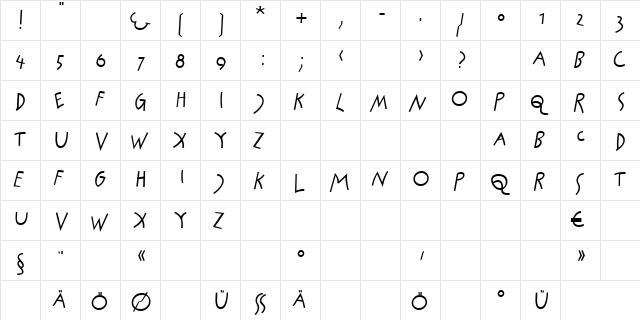
Jockey Oblique
Design Context for Jockey Typeface
Jockey takes a measured approach to typography — its balanced proportions and neutral character make it a reliable workhorse for both digital and print work. Its italic angle brings a sense of urgency and motion to the letterforms.